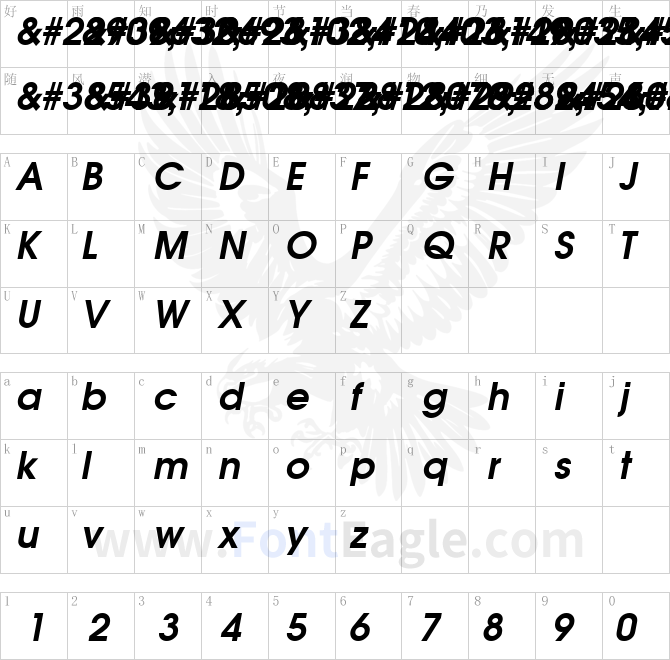
AvantGarde-DemiOblique is a great font, widely used in graphic design, single-page menu design, poster design and other fields, and is deeply loved by designers.AvantGarde-DemiOblique download.